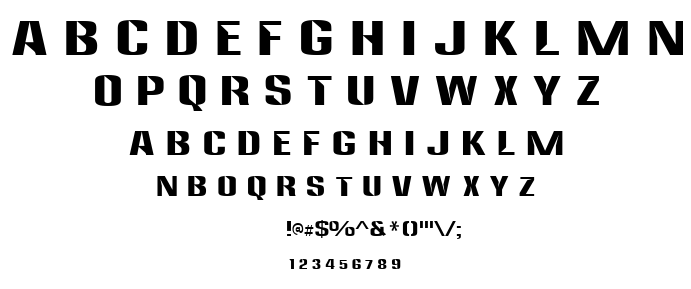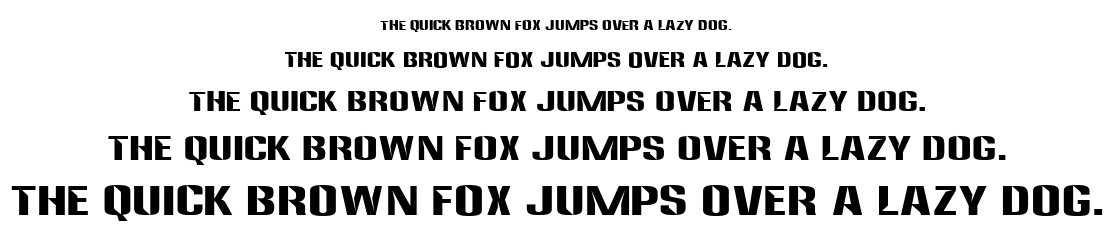
Anklepants is a tribute to the display font once used by Westinghouse-owned CBS radio stations. Don’t forget to read the files inside the zip for details. Updated in 2012.